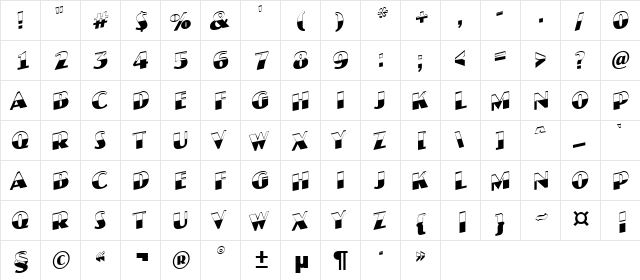
a_JasperTitulB&WUp Regular
Design Context for a_JasperTitulB&WUp Typeface
a_JasperTitulB&WUp is a composed and adaptable typeface that performs quietly and consistently across a wide range of design contexts.